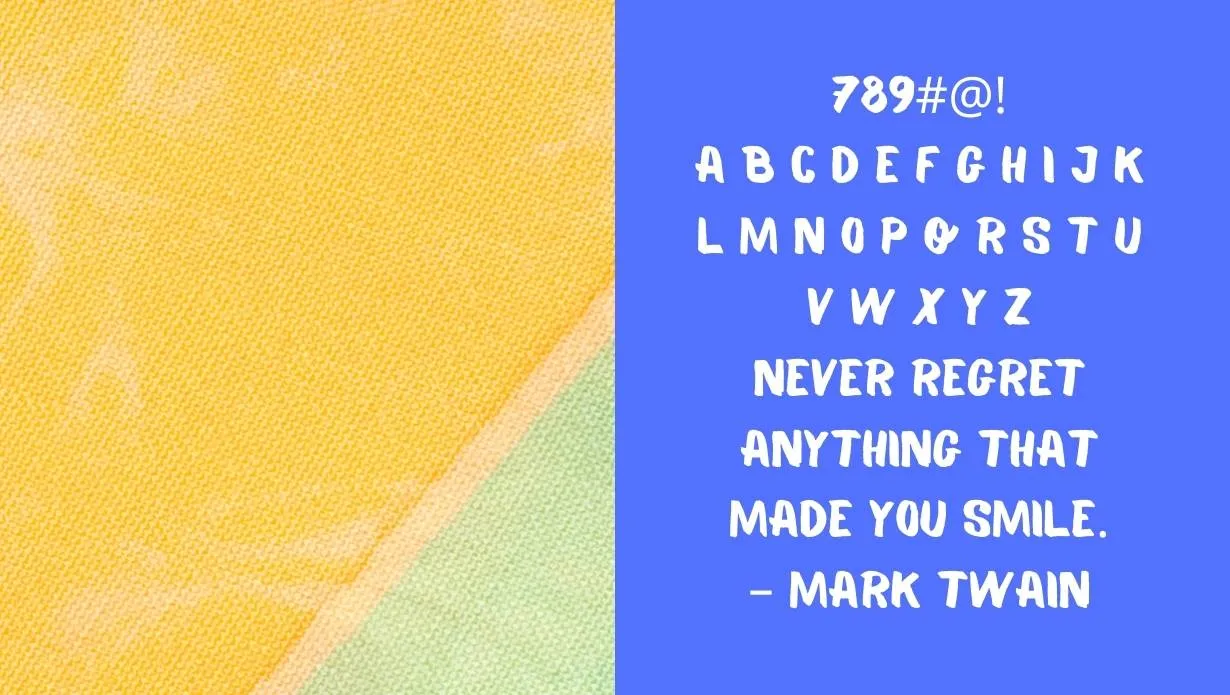
Today we are consulting on a very famous typeface named Balmy Font. This typeface belongs to the Script typeface. This stylish typeface was designed by Boris Garic. The release date of this typeface is December 12, 2016.
Balmy Font was created with the help of a calligraphic pen. This stunning typeface has a very unique style which makes it stand out from the rest.
| Name | Balmy Font |
| Designer | Boris Garic |